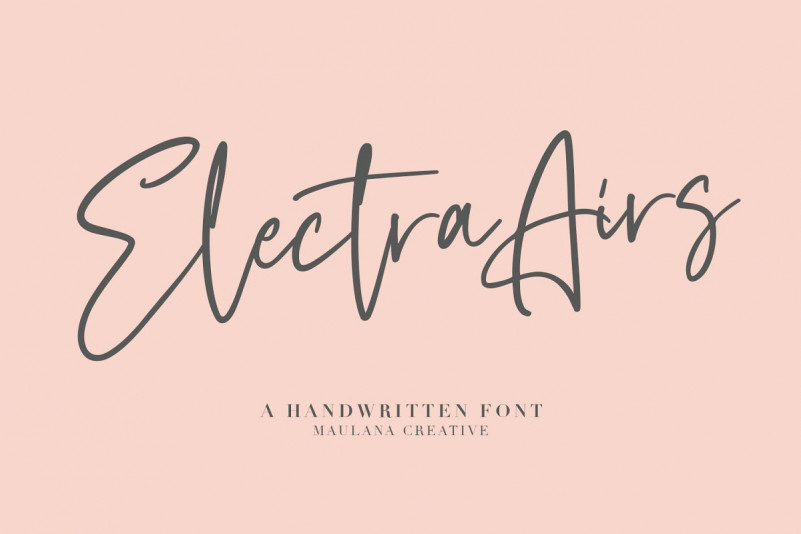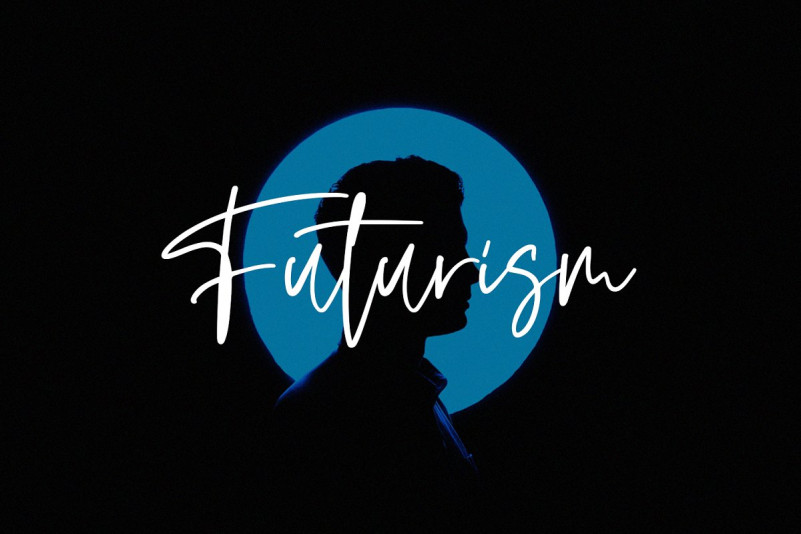
Electra Airs Font
Give your designs an authentic handcrafted feel. “Electra Airs Typeface” is perfectly suited to signature, stationery, logo, typography quotes, magazine or book cover, website header, clothing, branding, packaging design and more.